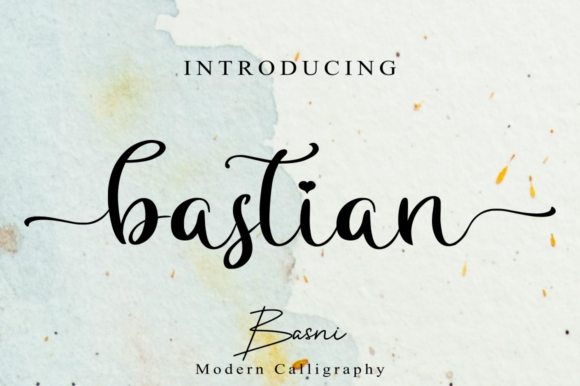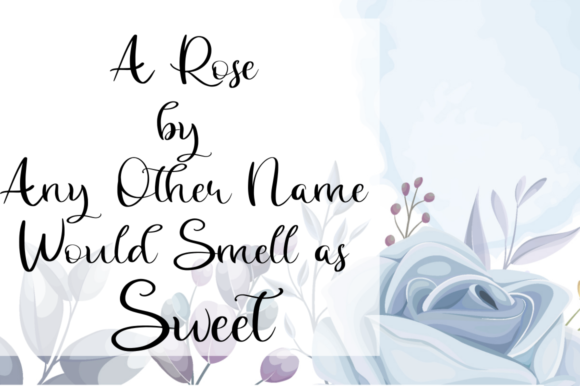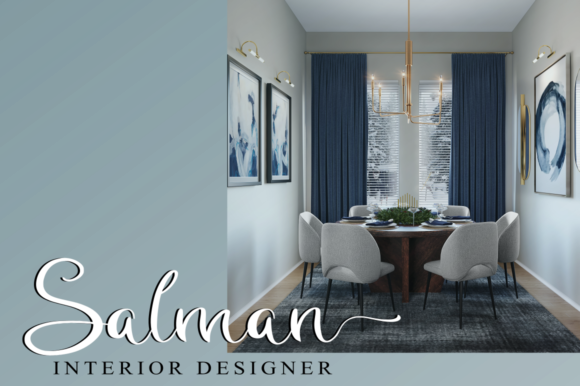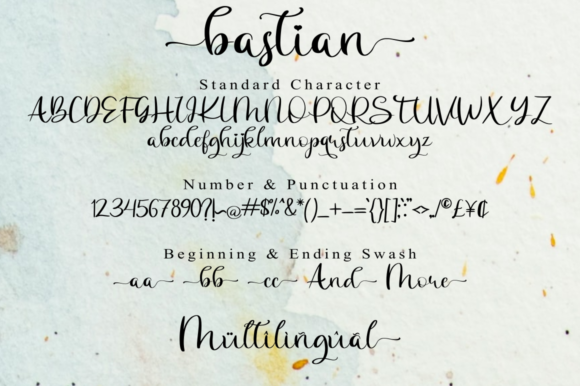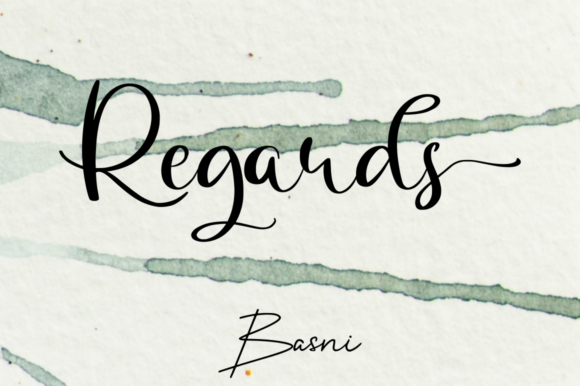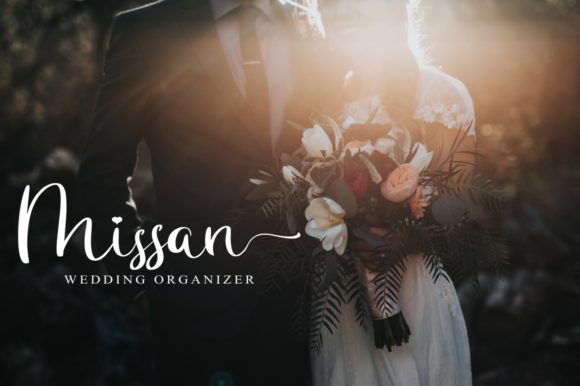
About Bastian Font
Bastian is a beautiful and timeless handwritten font that captures attention and adds a touch of elegance to your designs. With its carefully crafted letterforms, Bastian is the perfect choice for creating eye-catching logos, branding materials, and quotes.
The charm of Bastian lies in its unique and well-balanced characters. Each letter has been meticulously designed to maintain a harmonious flow, resulting in a font that is visually pleasing and easy to read. The organic and handwritten style of Bastian gives it a personal and authentic touch, making it an excellent choice for adding a personal and human element to your designs.
With its PUA encoding, Bastian provides easy access to a wide range of glyphs and swashes, allowing you to customize and embellish your designs with decorative elements and flourishes. This versatility gives you the freedom to create truly unique and eye-catching compositions.
Bastian’s timeless appeal makes it suitable for a variety of design projects. Whether you’re creating logos, branding materials, quotes, social media graphics, or any other visual content, Bastian will help your designs stand out and leave a lasting impression.
So, if you’re looking for a font that combines elegance, versatility, and a personal touch, Bastian is the perfect choice. Add it to your font collection, explore its wide range of glyphs and swashes, and let it elevate your designs to new heights of sophistication and visual appeal.